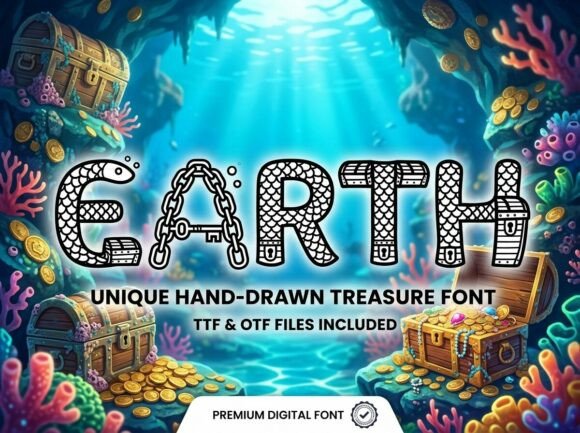
Unleash the Maritime Mystery: Discover the Earth Font
Are you ready to embark on a visual adventure that exudes a sense of mystery and maritime flair? Look no further than the Earth font, an intricate display typeface that embodies the essence of the high seas. This stunning font is meticulously crafted to transport you to a world of pirate treasures, ancient artifacts, and legendary lore.
The Inspiration Behind Earth Font
Earth font is the brainchild of a creative designer who sought to capture the “maritime-and-mysterious” soul in a typographic form. The result is a bold and eye-catching typeface that features hand-drawn letterforms, masterfully rendered to resemble pirate artifacts. Each letter is a work of art, boasting intricate details that evoke a sense of adventure and nostalgia.
Design Elements of Earth Font
The Earth font boasts a range of design elements that make it a standout in the world of typography. Some of its notable features include:
- Iron Chains: The font’s letterforms are intertwined with iron chains, giving it a sturdy, rugged feel that’s perfect for nautical-themed designs.
- Skeleton Keys: The keys add a touch of mystery and ancient lore to the font, hinting at hidden treasures and secret passages.
- Treasure Chests: The treasure chests are expertly integrated into the letterforms, evoking the sense of a chest overflowing with gold coins and precious jewels.
- Reptilian Scales: The reptilian scales add a touch of the exotic and unknown, lending an air of mystique to the font.
Use Cases for Earth Font
With its bold, adventurous personality and heavy illustrative weight, Earth font is the perfect choice for a range of design projects, including:
- Independent Gaming Branding: Create a lasting impression with Earth font, perfect for game logos, titles, and packaging.
- Nautical-Themed Escape Room Graphics: Transport your audience to a world of maritime mystery and adventure with Earth font.
- Historical Fiction Book Covers: Add a touch of authenticity and nostalgia to your historical fiction book covers with Earth font.
- Social Media Headers: Make a bold statement with Earth font, ideal for “legendary-and-lost-treasure” themed social media headers.
Why Choose Earth Font?
So why choose Earth font for your next design project? Here are just a few compelling reasons:
- Unique and Eye-Catching: Earth font is a true showstopper, guaranteed to grab attention and leave a lasting impression.
- Highly Versatile: The font’s bold, illustrative style makes it suitable for a wide range of design projects, from gaming to book covers.
- Easy to Read: Despite its intricate design, Earth font is surprisingly easy to read, making it perfect for headlines and titles.
In conclusion, Earth font is a true masterpiece of typographic design, offering a unique blend of maritime mystery and adventurous flair. Whether you’re a designer, craftsperson, or simply a fan of the high seas, this font is sure to captivate and inspire. So why wait? Embark on a visual adventure with Earth font today and discover a world of creative possibilities!